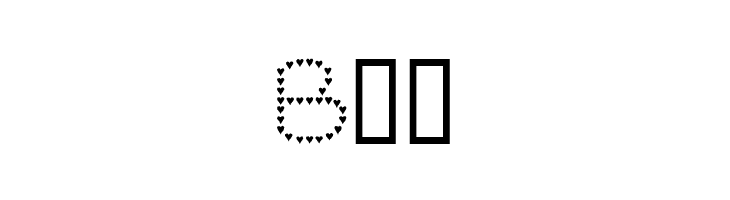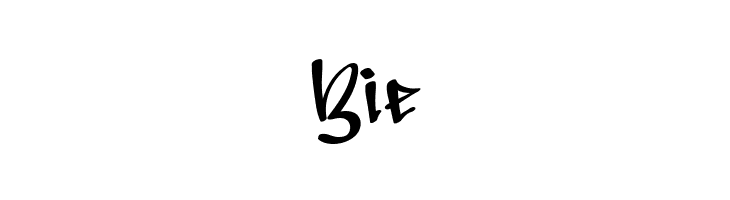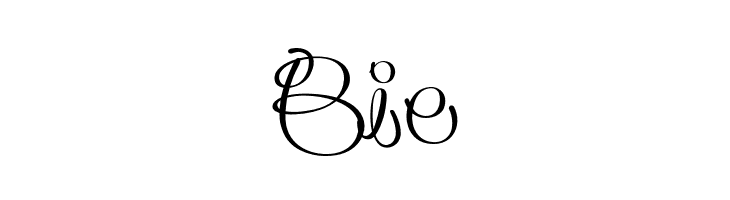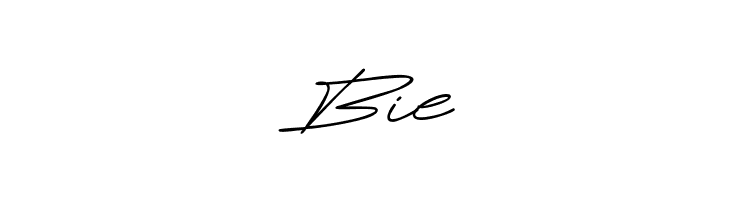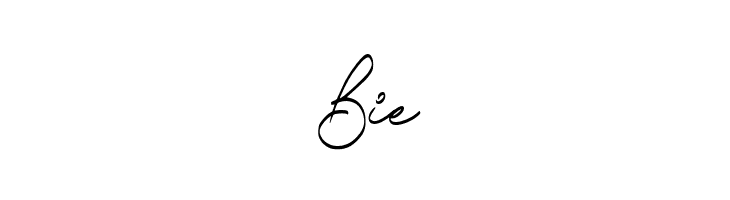
A bold, playful font with exaggerated strokes and a cartoonish flair.
An artistic and edgy font with a blend of modern and traditional calligraphy elements.
A whimsical, hand-drawn font with fluid, irregular strokes and artistic flair.
A whimsical and decorative font with curly, looping strokes and artistic flair.
A cursive, handwritten font with elegant, flowing strokes.
A sophisticated script font with fluid, interconnected strokes and elegant curves.
A graceful and elegant script font with flowing, connected characters.
A dynamic and flowing script font with elegant, fluid strokes.
A playful, hand-drawn font with a casual and artistic style.
A playful font composed entirely of small heart shapes, perfect for romantic and whimsical designs.